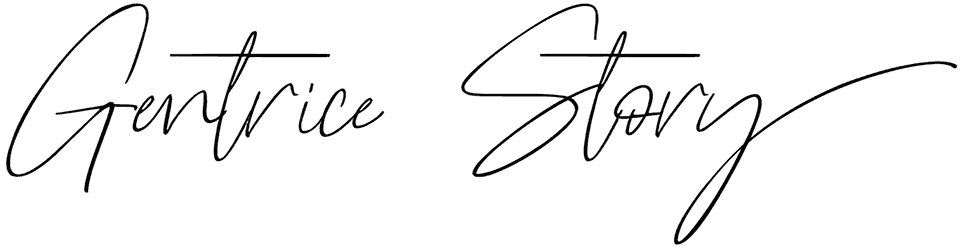
Gentrice Story Font
Creating a design with realistic and casual text will not be difficult if you make the right choice. This autograph font, named Gentrice Story, has nice and elegant hand lettering that can be used for varied ideas. This modern calligraphy font doesn’t support numbers, but it will be a great pick for many items like flyers, planners, greeting cards, and whatnot.